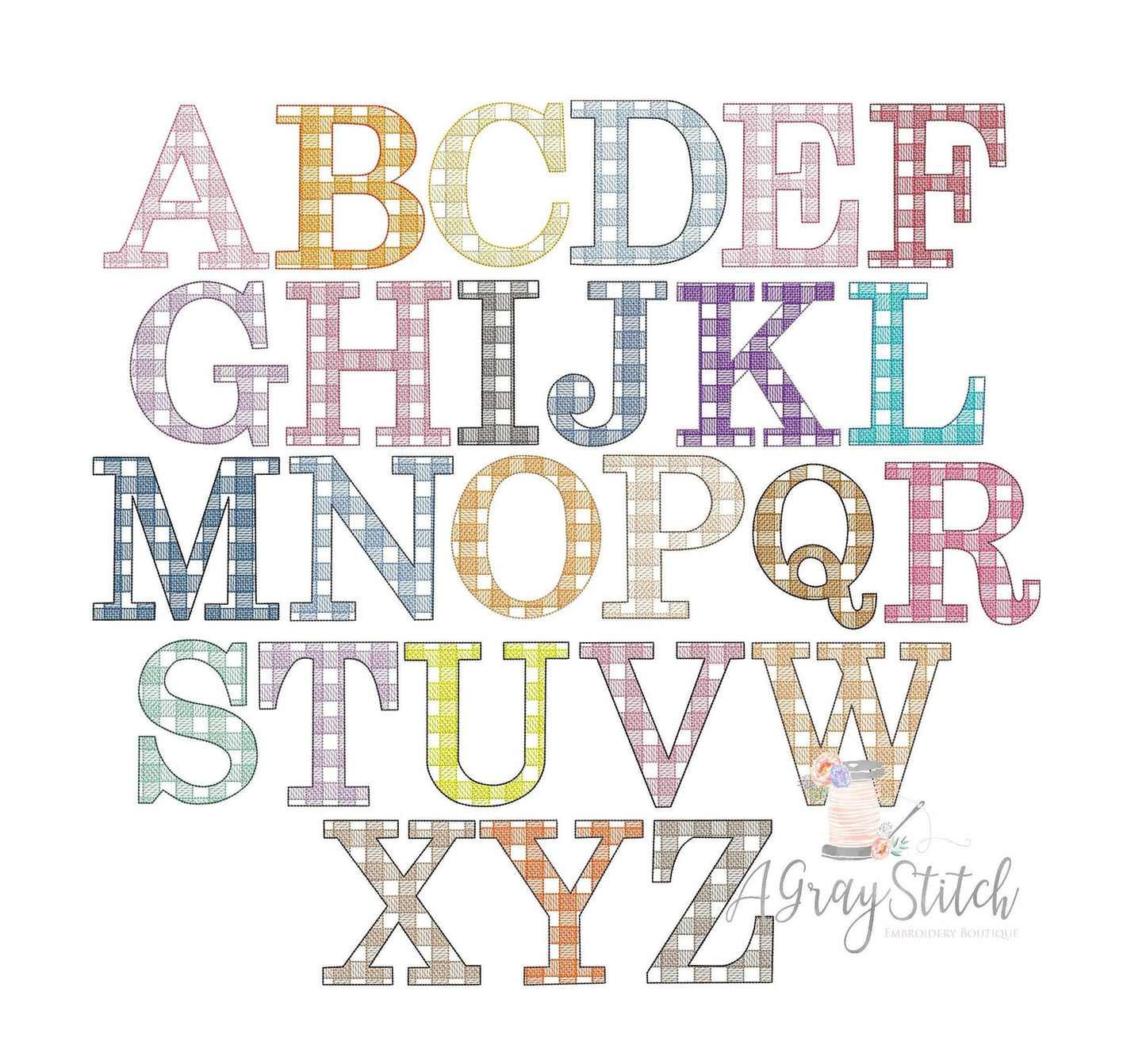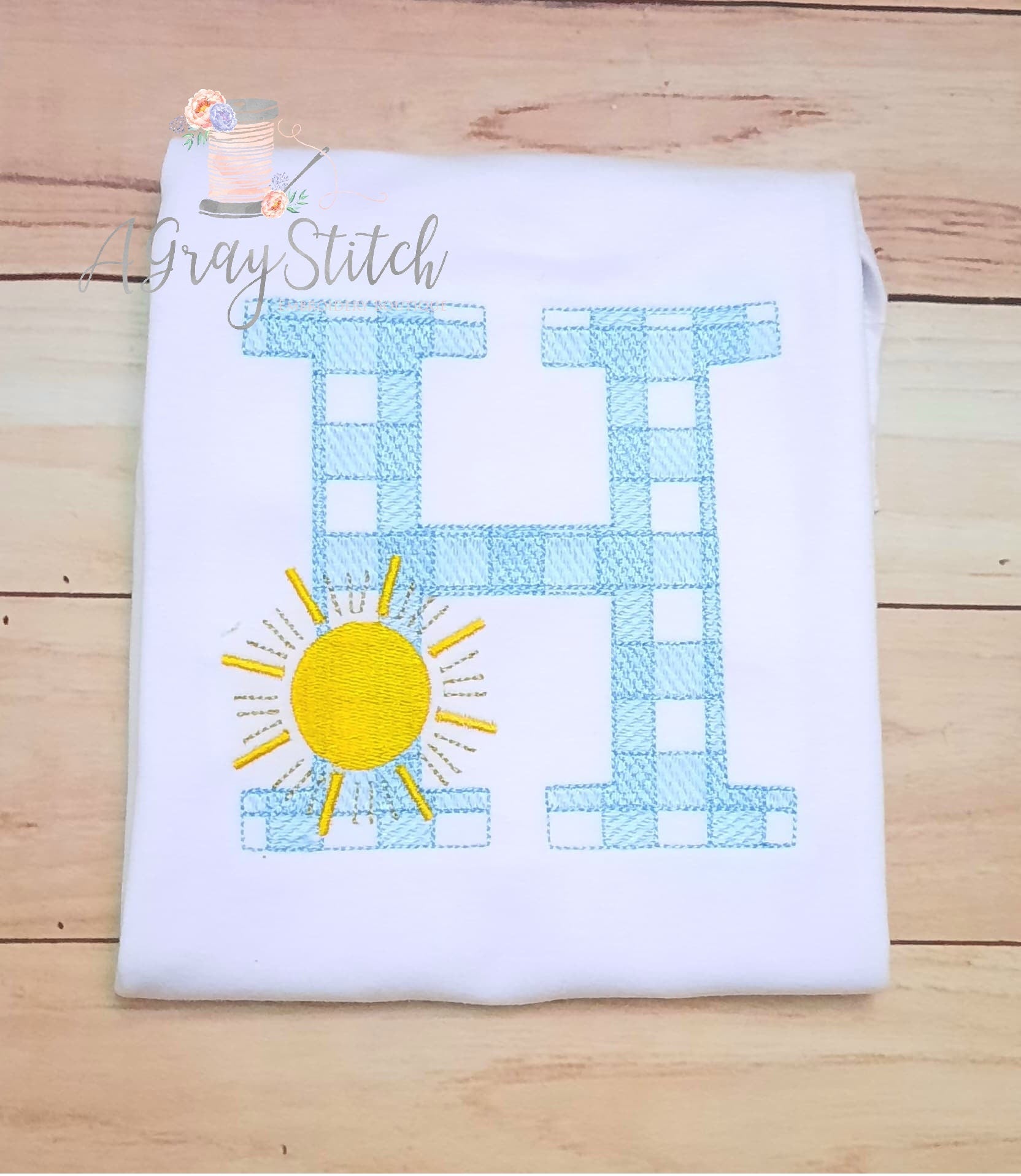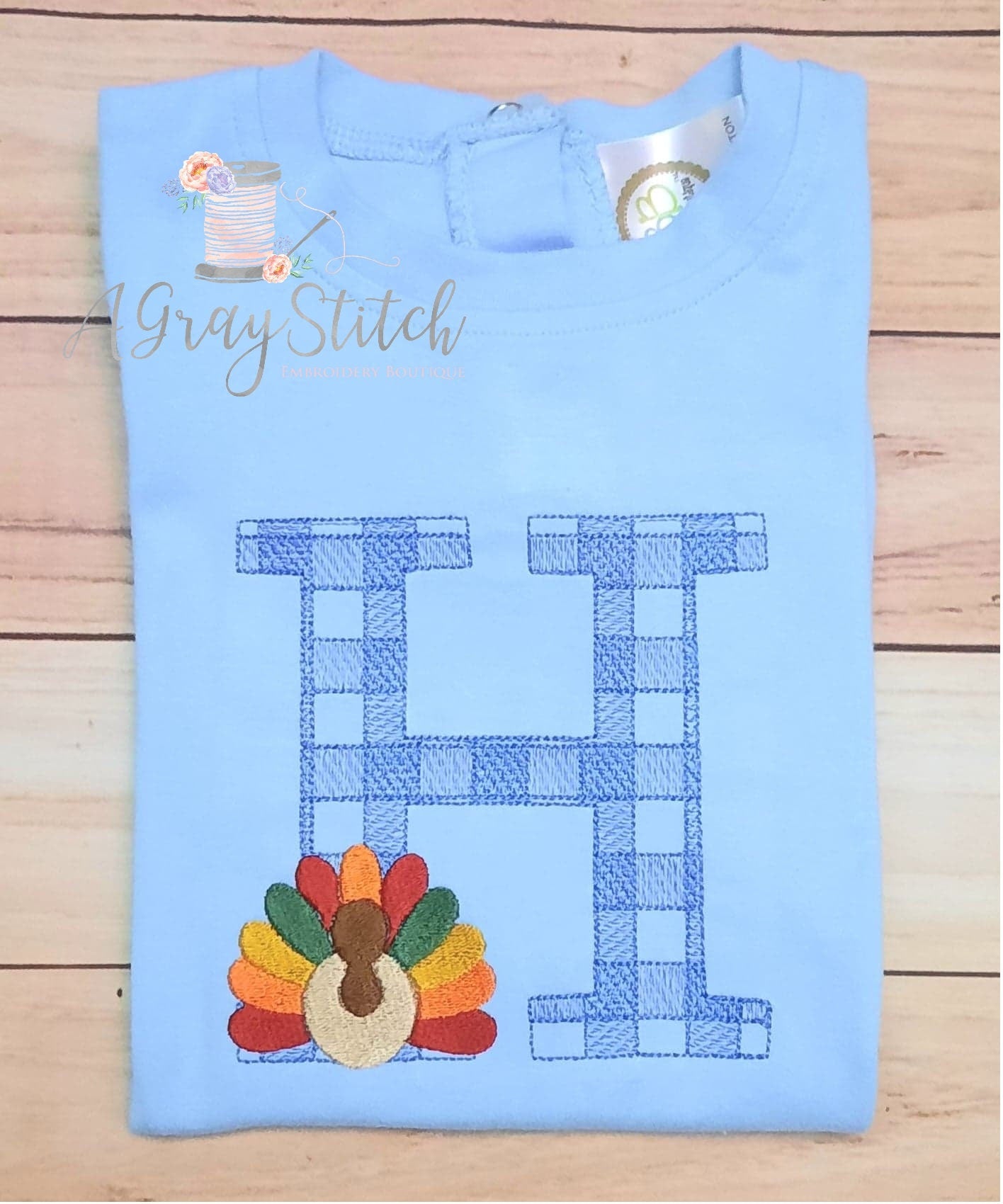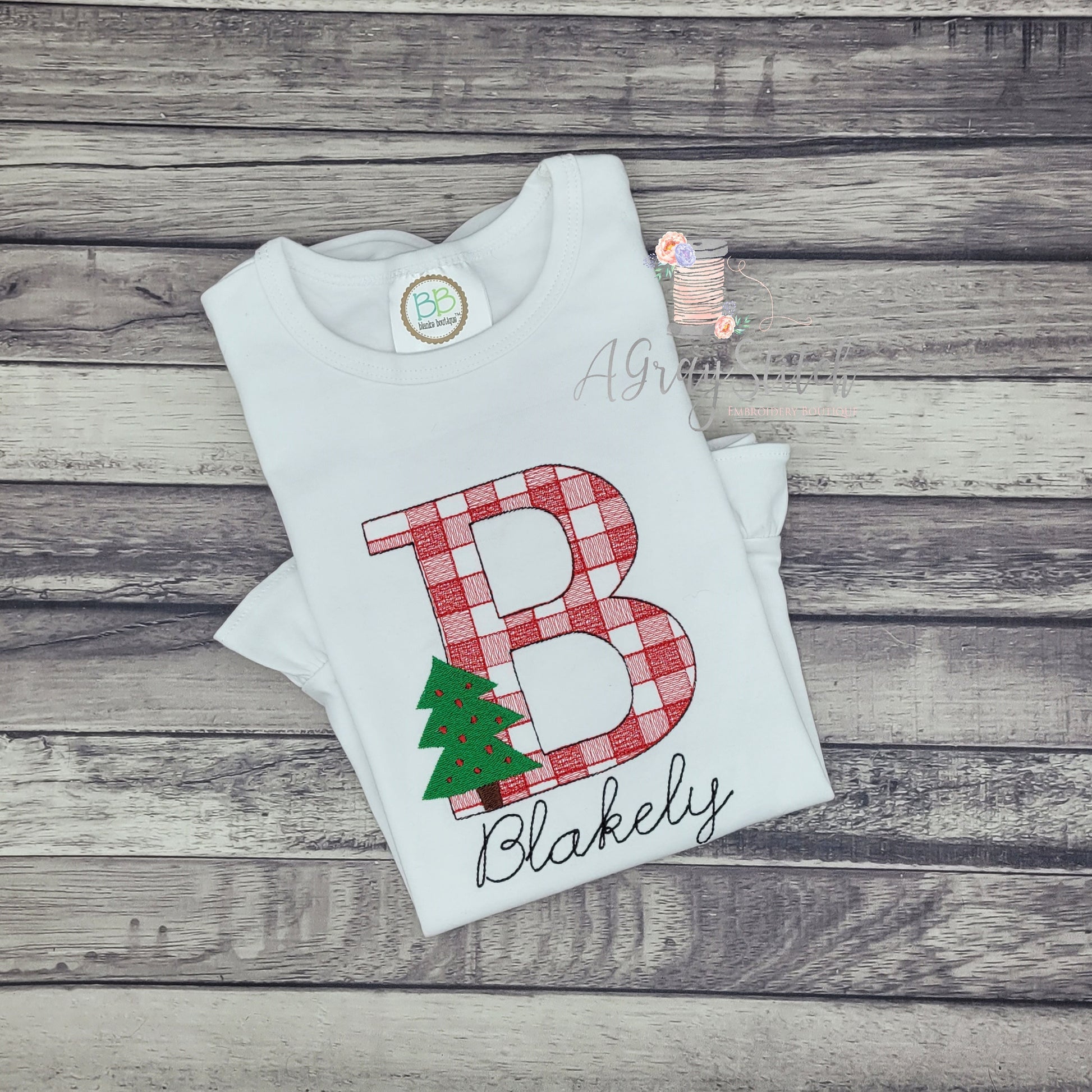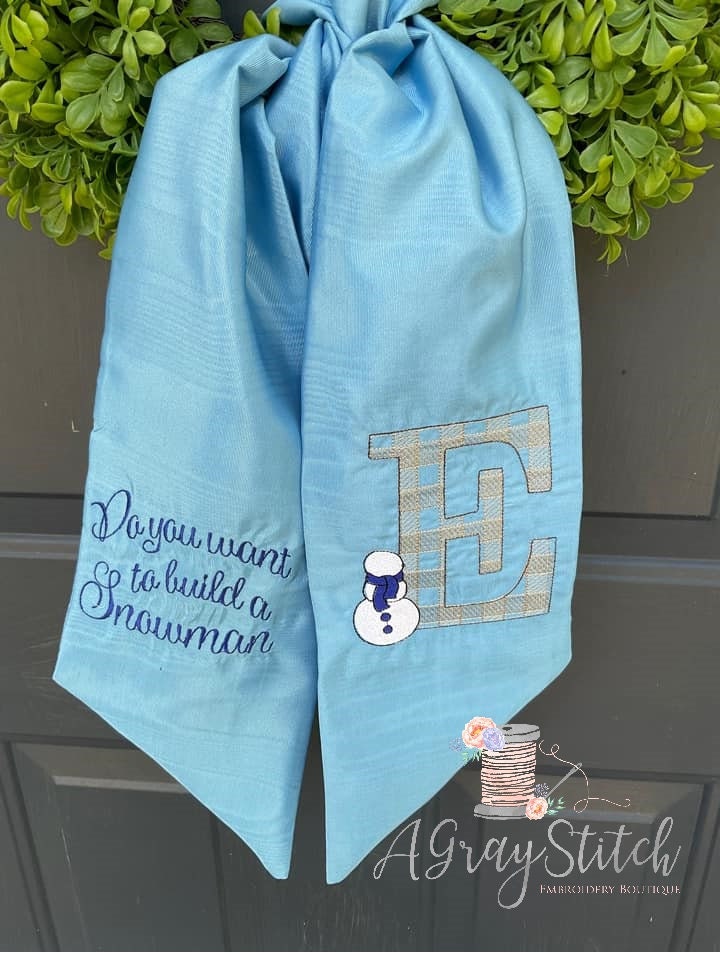
Jumbo Gingham Sketch Embroidery Alphabet 4 inch 5 inch includes mini designs Machine Embroidery Font BX included
Sketch Fill Font Design
Perfect for a simple center design! Continuous stitching, no thread cutting. Quick Stitch out!
Mini designs included: baseball mitt, basketball, beach ball, bunny rabbit head, Christmas/birthday gift, Christmas tree, crawfish, floral bouquet, football, ghost, heart bunch, party hat, pumpkin, putting green, shamrock, snowman, soccer ball, softball/baseball, sun, tractor, turkey, witch hat